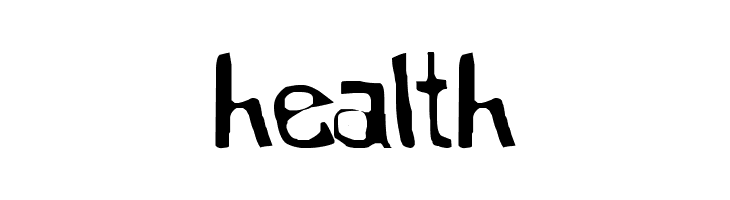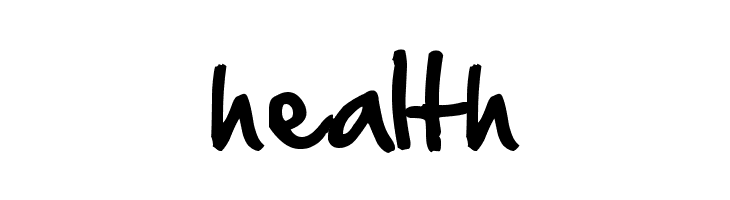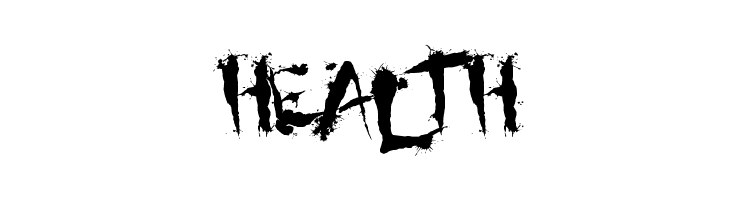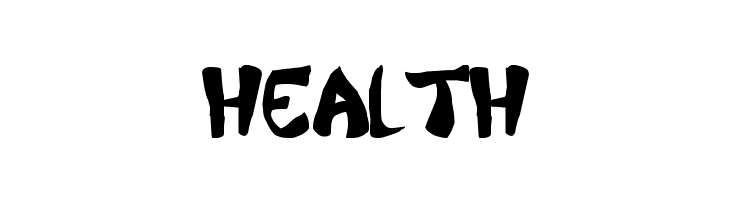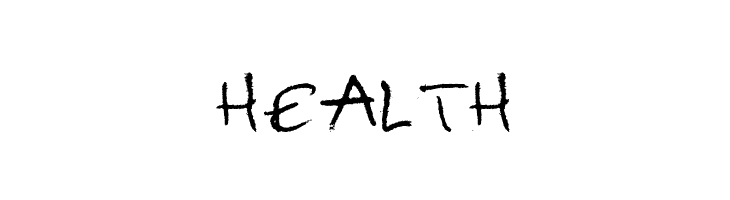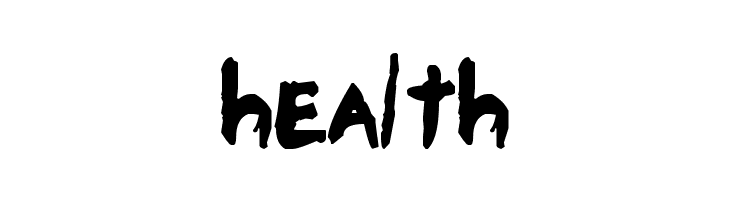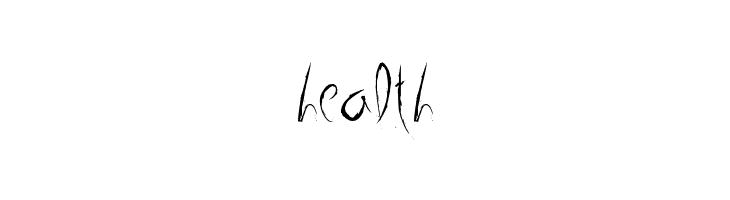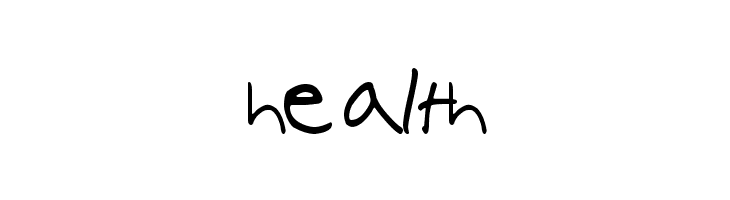
A bold, ornate Blackletter font with a Gothic, medieval style.
A jagged, edgy font with sharp, irregular characters ideal for dramatic themes.
A casual, handwritten-style font with a playful and personal touch.
A playful handwritten font with a casual and friendly vibe.
A playful, handwritten-style font with bold, slightly tilted characters.
A dynamic, handwritten font with a casual and expressive style.
A futuristic, geometric, hollow italic font with sharp, angular edges.
A bold, dramatic font with sharp angles and an edgy appearance.
A dynamic, italicized font with a futuristic and angular design.
A playful, casual handwritten font with a whimsical and informal style.
A playful and artistic font with dynamic, hand-drawn letterforms.
A bold, decorative font with vintage flair and elegant flourishes.
A bold, rounded font with a playful and friendly style.
A modern, geometric sans-serif font with clean lines and balanced spacing.
A whimsical, hand-drawn font with thin, irregular strokes and a playful aesthetic.
A modern, geometric font with a futuristic and technical design.
A casual, handwritten font with an organic and informal style.
A bold, playful handwritten font with a friendly and informal style.
A playful, informal handwritten font with irregular strokes and a lively feel.
A hand-drawn, casual font with an organic and lively appearance.
A playful, bold handwritten font with a casual and friendly style.
A playful, handwritten font with irregular strokes and a casual feel.
A playful, hand-drawn font with whimsical, irregular strokes.